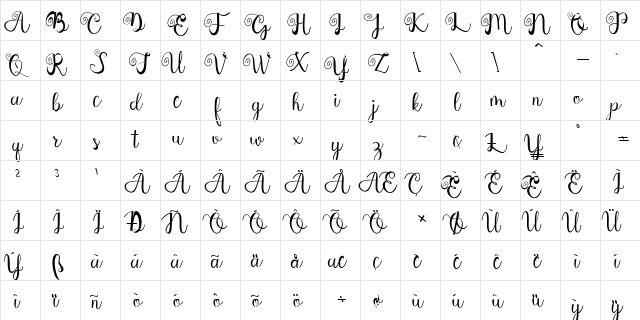
Northern Europe Regular
Design Context for Northern Europe Typeface
Northern Europe is a composed and adaptable typeface that performs quietly and consistently across a wide range of design contexts.